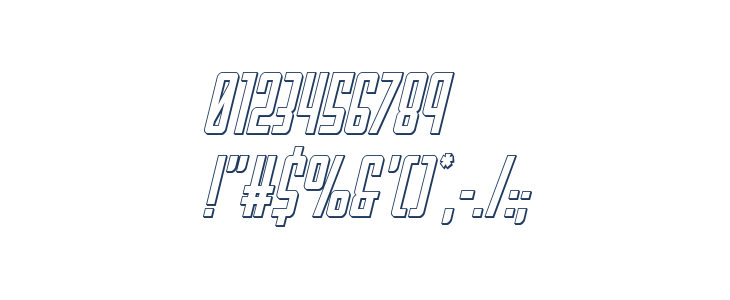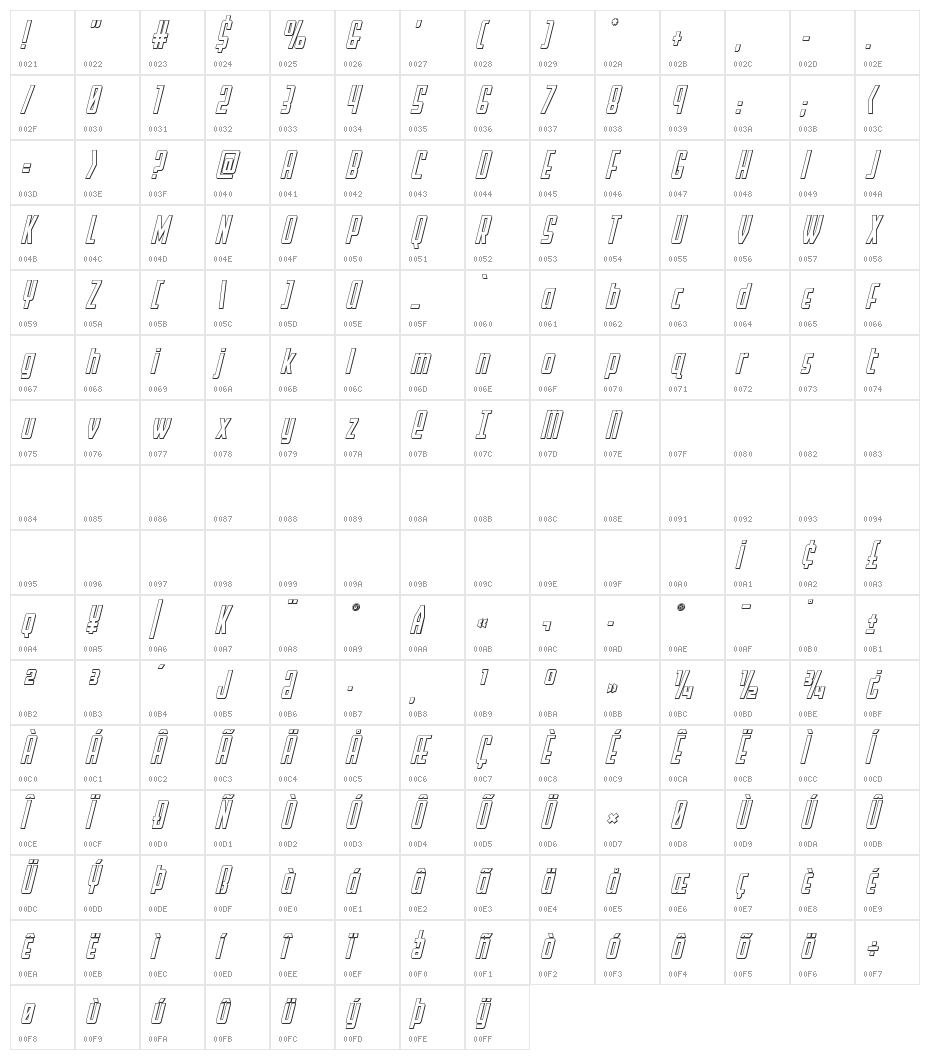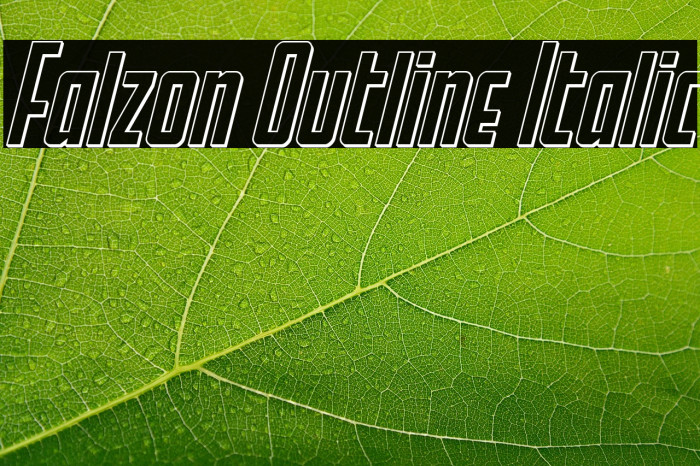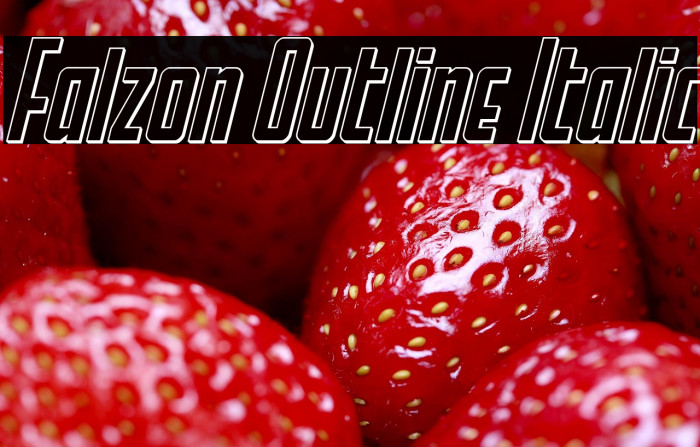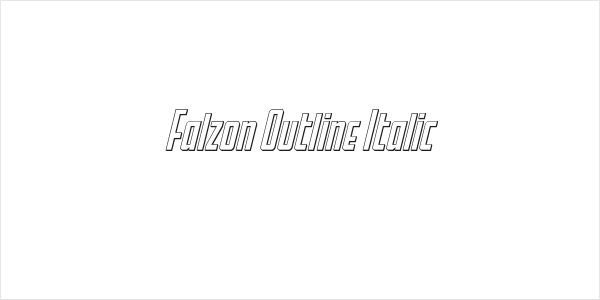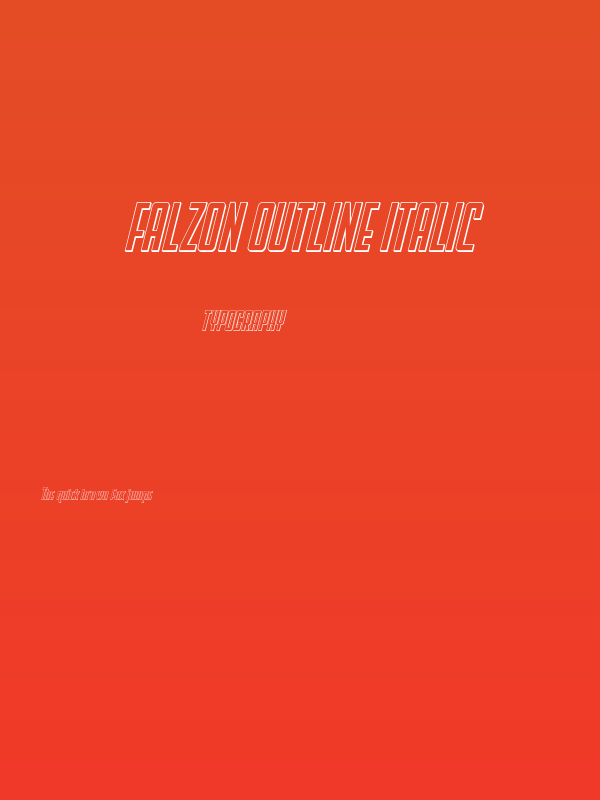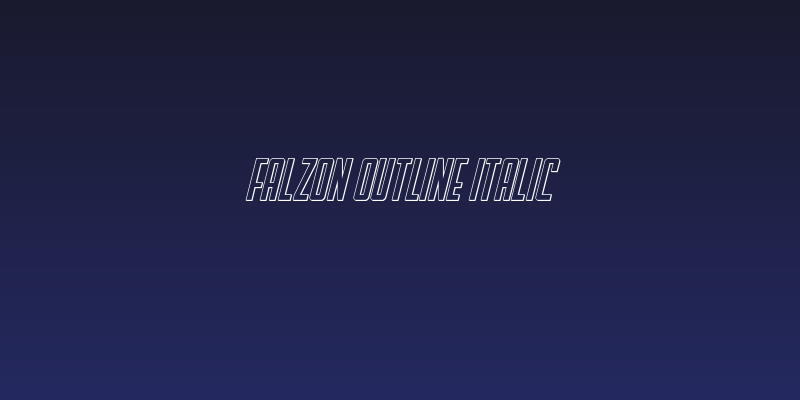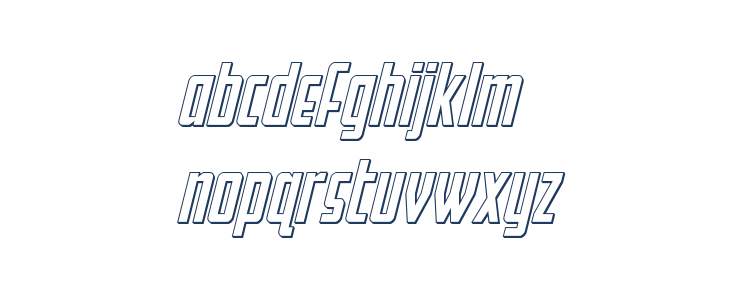
Falzon Outline Italic Font
Falzon Outline Italic Description
This font features a bold and dynamic outline style with a distinct italic slant, giving it a sense of motion and energy. The uppercase and lowercase letters are designed with a consistent stroke width, creating a uniform and cohesive appearance. The numerals and special characters maintain the same outlined aesthetic, ensuring visual harmony across all elements. The font's design is modern and eye-catching, making it suitable for projects that require a strong visual impact. Its outlined nature allows for creative layering and color usage, enhancing its versatility in various design contexts.
| Proposed Projects | Ideal for headlines, posters, branding, and any design needing a striking and modern look. |